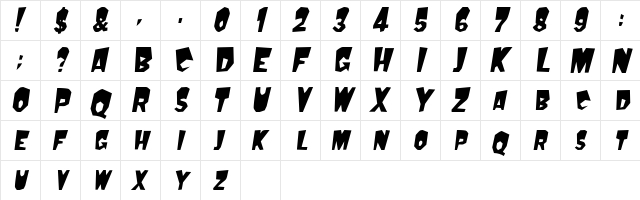
Mondo Oblique
Design Context for Mondo Typeface
Mondo is a composed and adaptable typeface that performs quietly and consistently across a wide range of design contexts. The slanted form adds forward momentum and visual energy.
Pro Tip: Use Mondo for emphasis, pull quotes, and subheadings where its slanted energy can add rhythm to the layout.